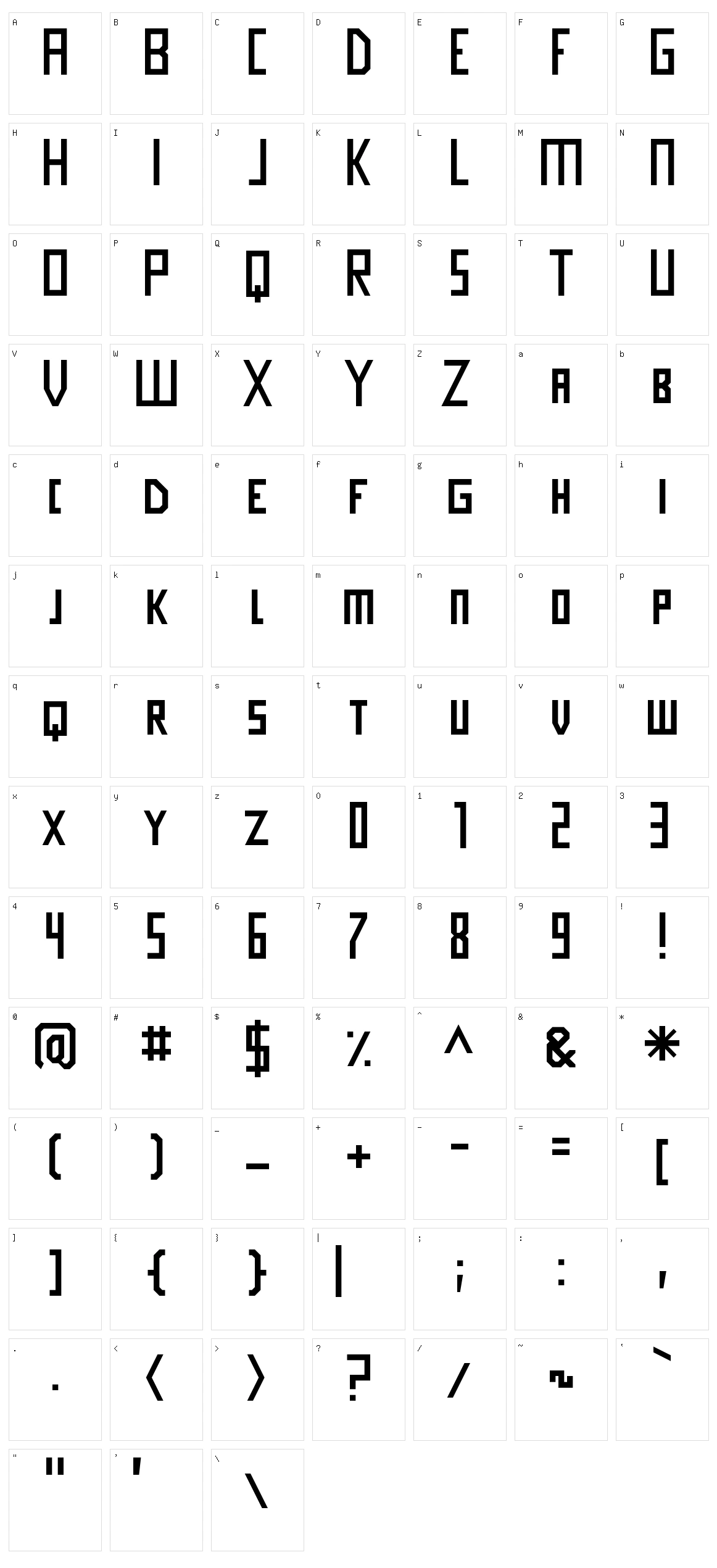
Imagine Extra Slim
This futuristic small cabs was created for my Game Project www.ImagineEarth.info A simple techno square font for headlines and styles!